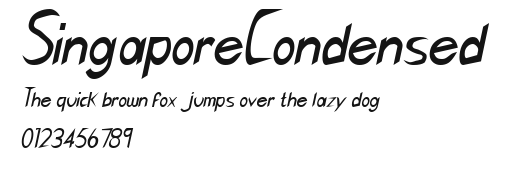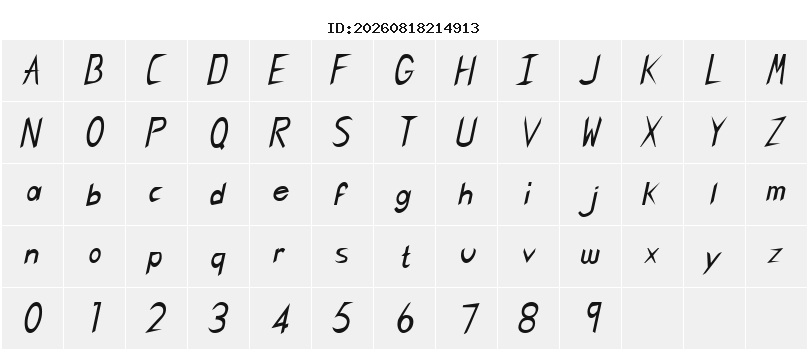
SingaporeCondensed Preview
• Font Name: SingaporeCondensed
• Font ID: SWFTE:SingaporeCondensed Italic
• Full Font Name: SingaporeCondensed Italic
About SingaporeCondensed.ttf
SingaporeCondensed.ttf is a modern, elegant sans-serif font designed for ultimate readability and visual harmony. Perfect for branding, headlines, web design, and print materials.